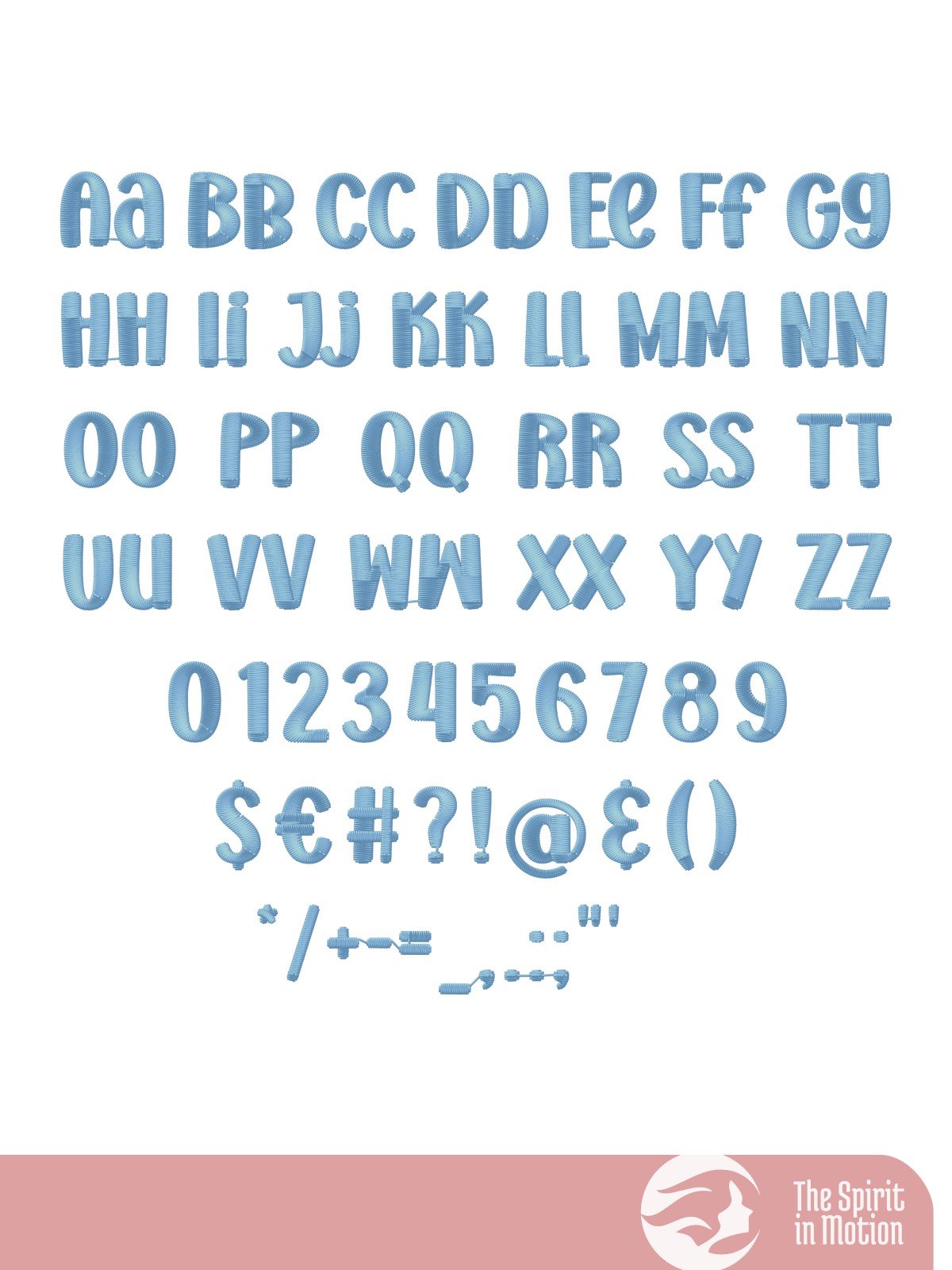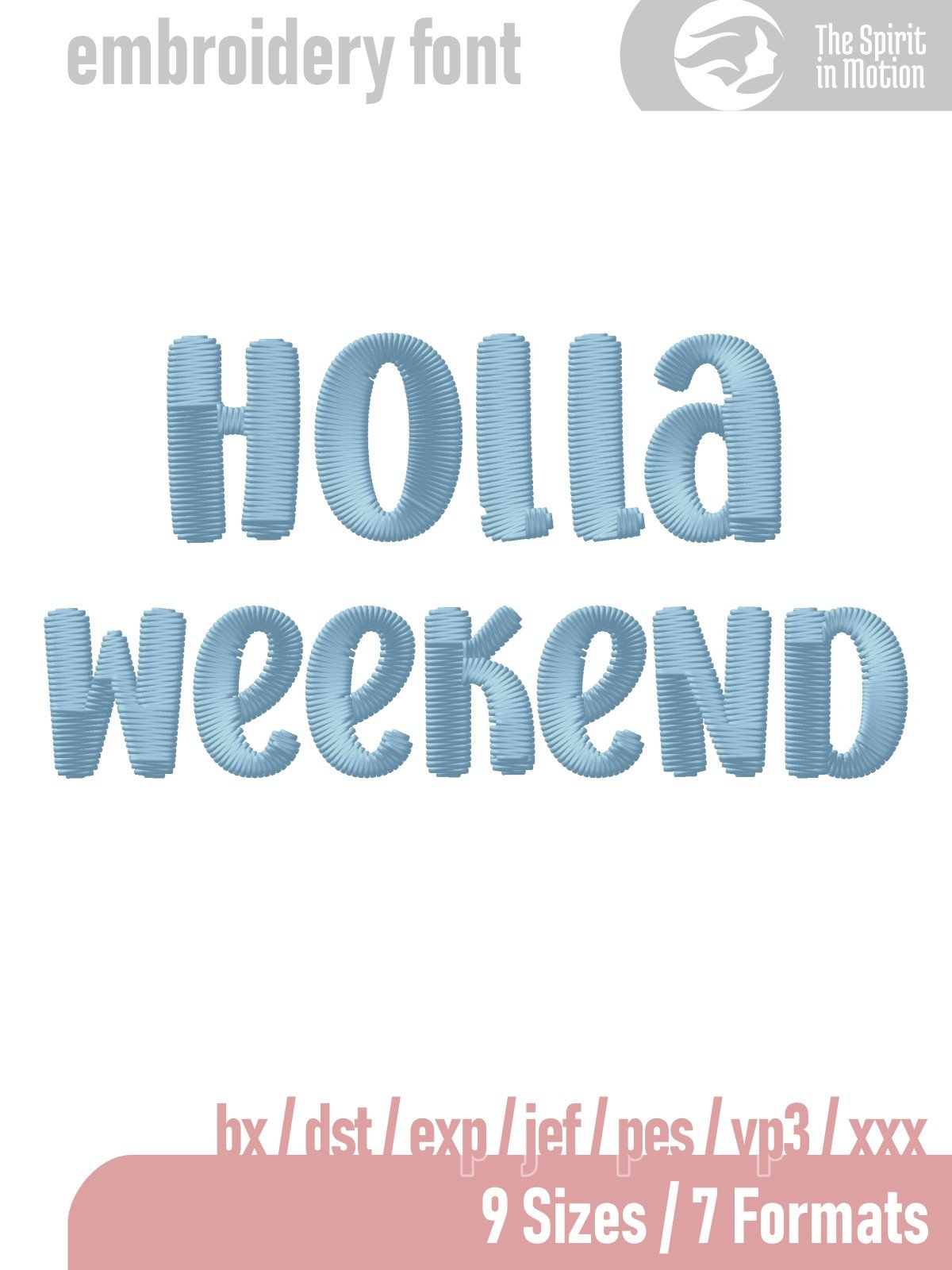
Holla Weekend Machine Embroidery Font | PES, BX, DST
Add a playful and friendly touch to your embroidery projects with this bold and energetic display font. Perfect for kids’ decor, and personalized gifts, it’s available in multiple sizes and compatible with most embroidery machines. With precise digitization for crisp results, this instantly downloadable font is ready to make your designs stand out.